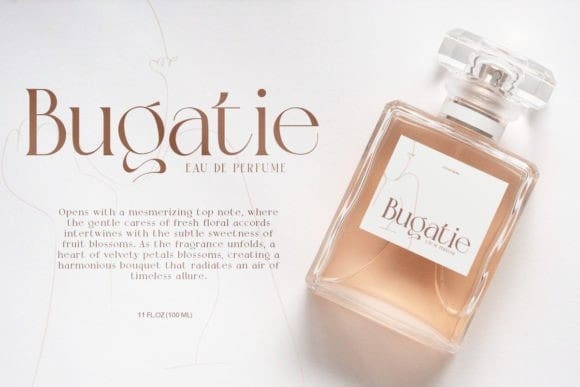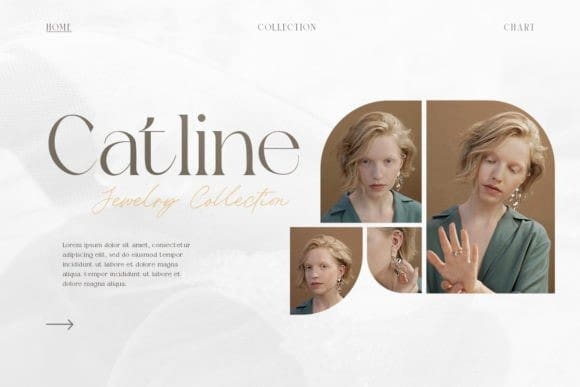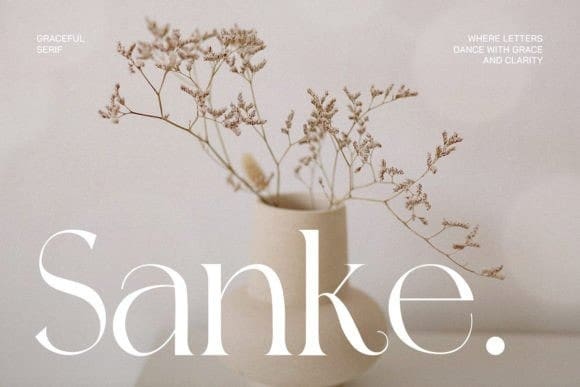
Sanke Font
Sanke Font a serif font that effortlessly encapsulates the essence of timeless beauty and enduring elegance. With meticulously crafted serifs and refined details, Sanke pays homage to classic design principles while seamlessly blending with modern sophistication.